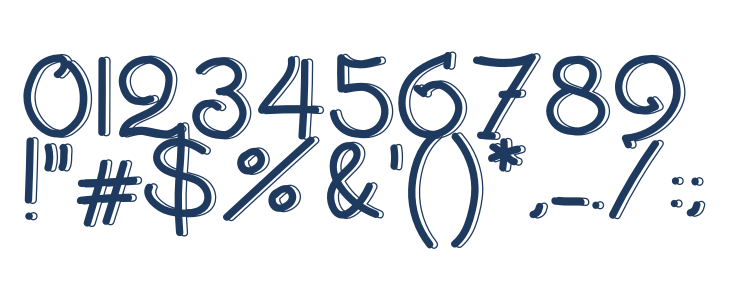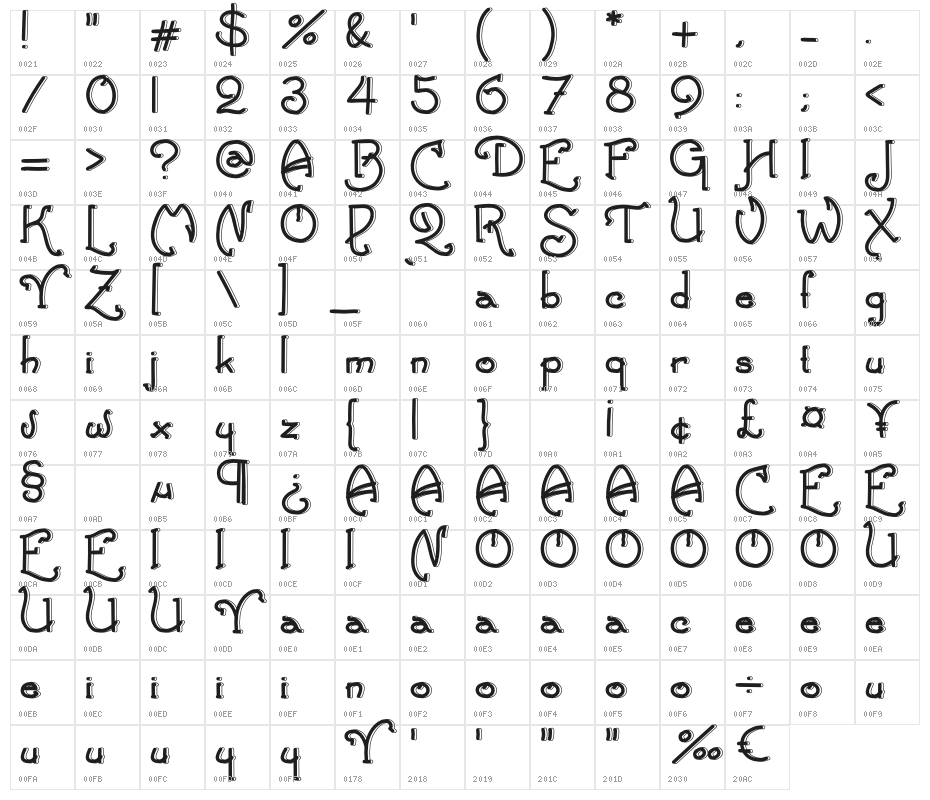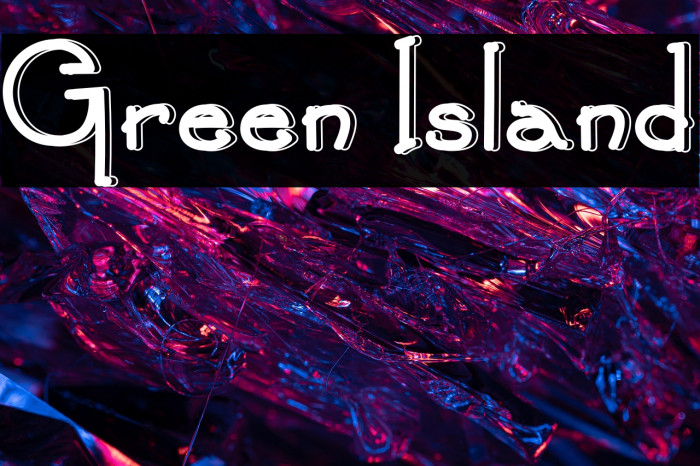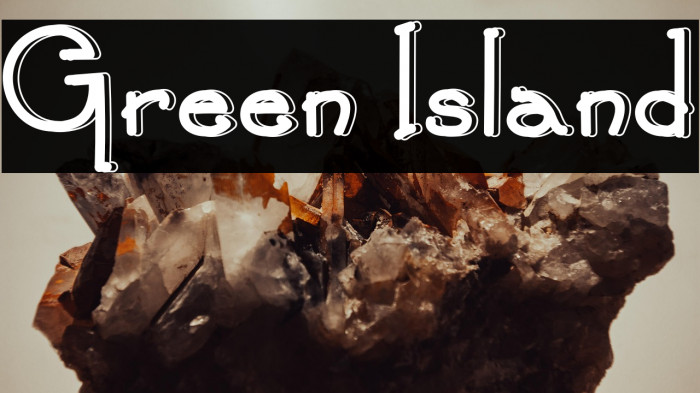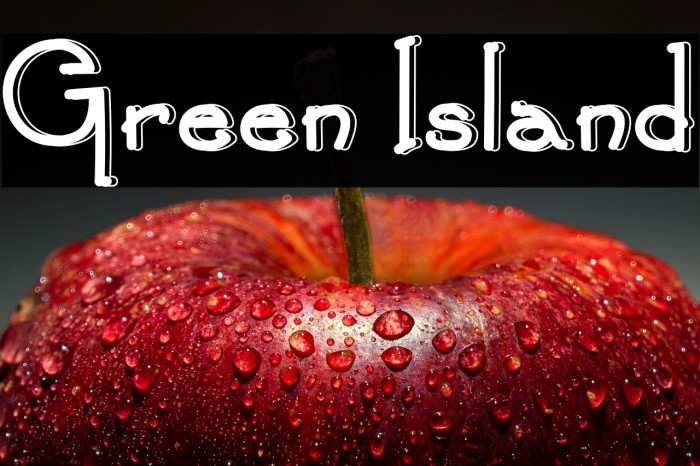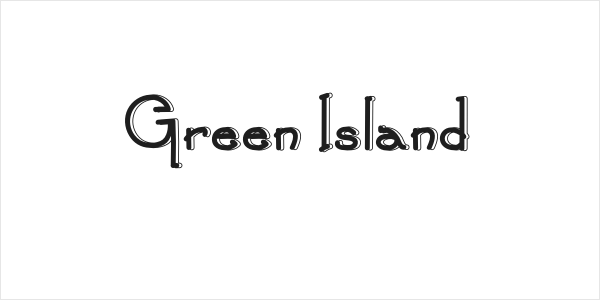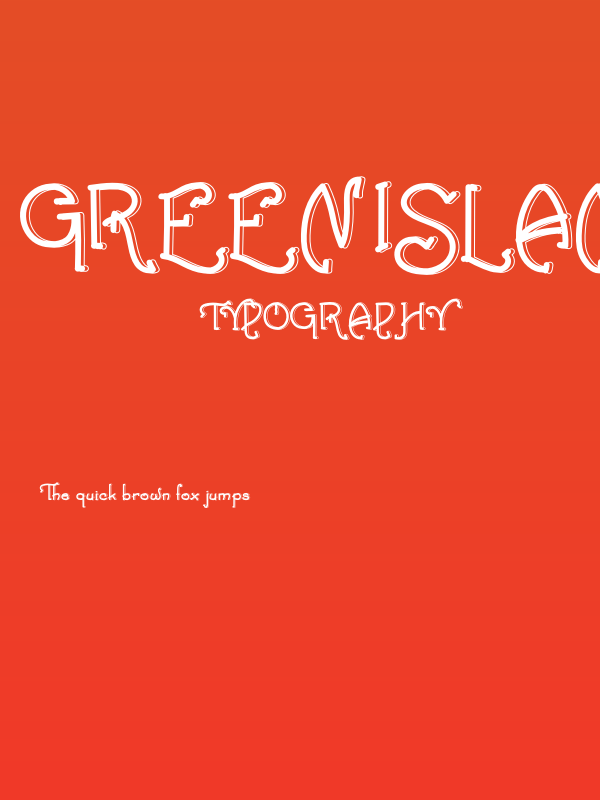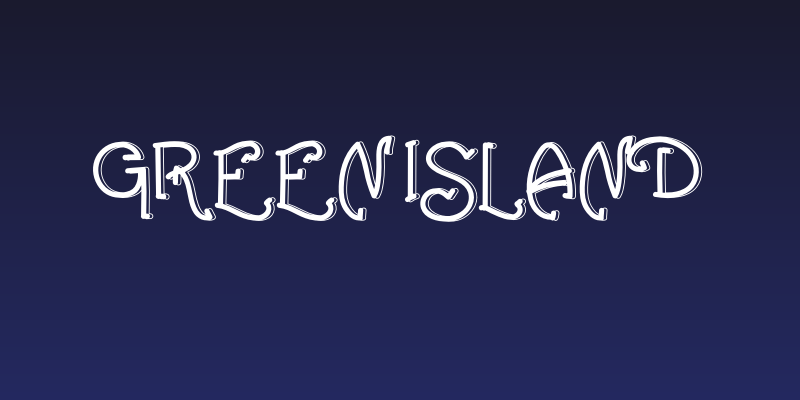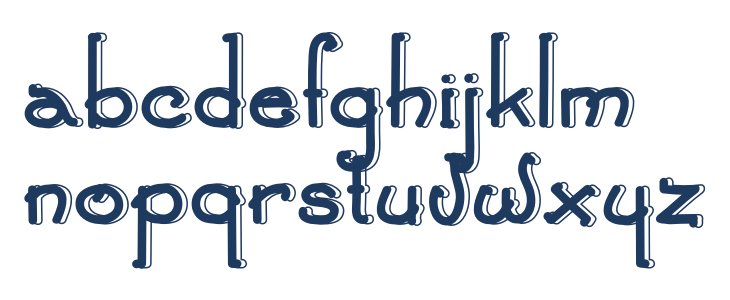
Green Island Font
This font features a playful and whimsical design, characterized by its curly and decorative elements. The uppercase letters exhibit a unique flair with extended strokes and loops, giving them a lively appearance. The lowercase letters maintain this playful style, with some characters having exaggerated curves and swirls. The numerals are bold and consistent with the overall theme, ensuring readability while maintaining the decorative style. Special characters are creatively designed, adding to the font's charm. This font is ideal for projects that require a fun and engaging aesthetic.